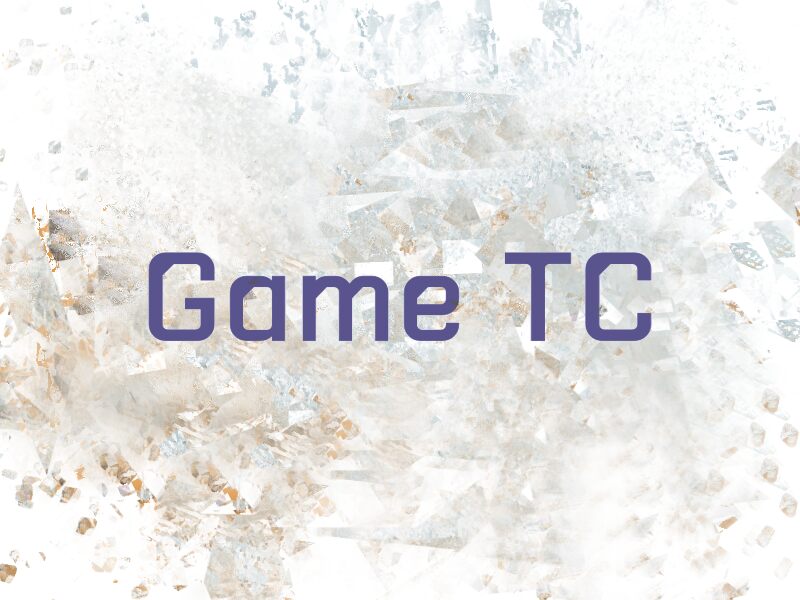
Game TC
Game TC font by wep is a free techno display font with a futuristic style and geometric shapes. This font is highly structured and it has both retro elements and a modern appearance. The characters have rounded corners that contribute to the overall minimalistic style of the typeface which has no unnecessary decorative elements.
Game TC can perfectly be used to design posters, book covers, movie titles, video games cover title pages, website headers, or to decorate various social media accounts. Go further by using it in magazines layouts, company logos or stationaries like mugs and t-shirts for branding.